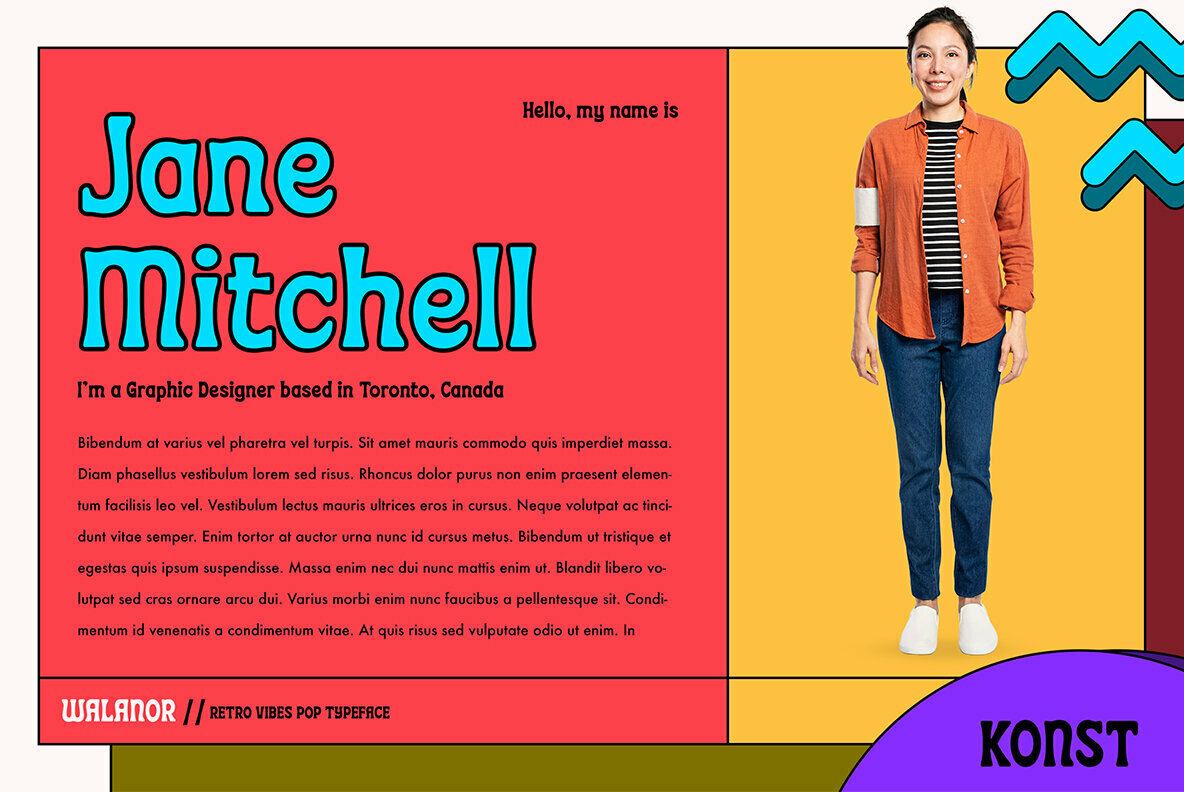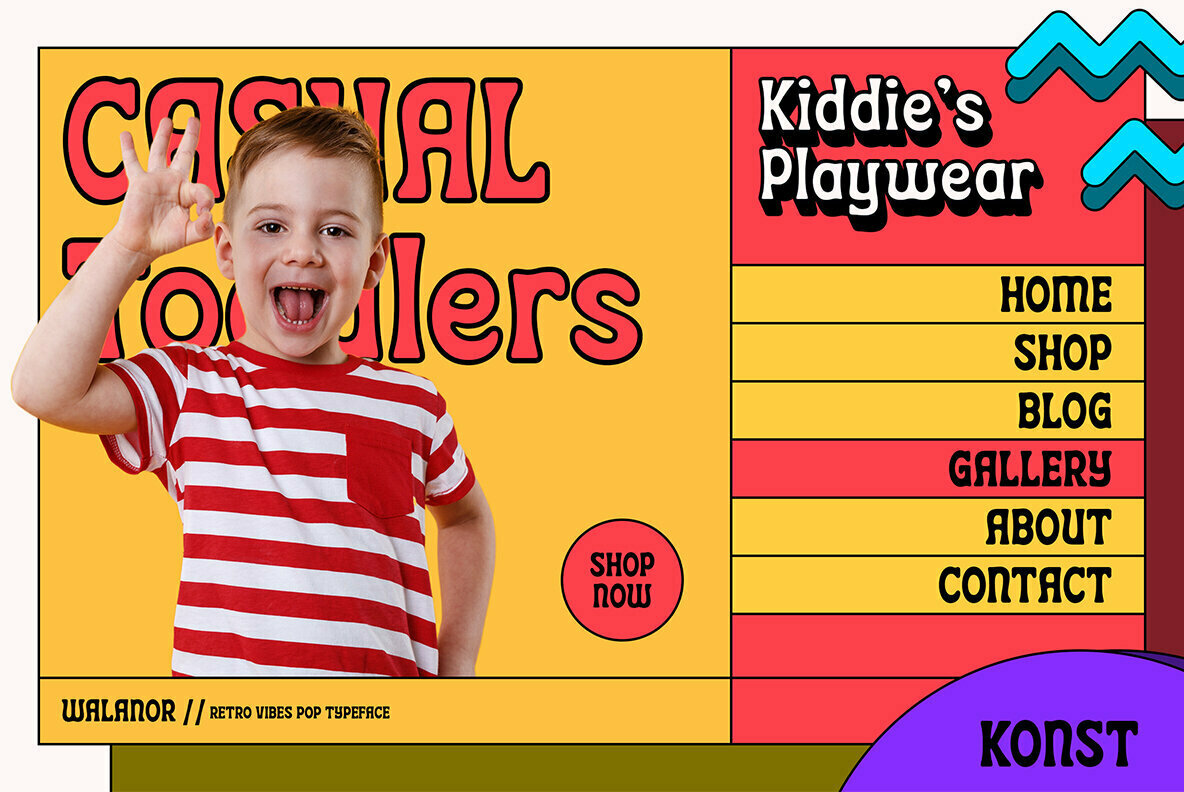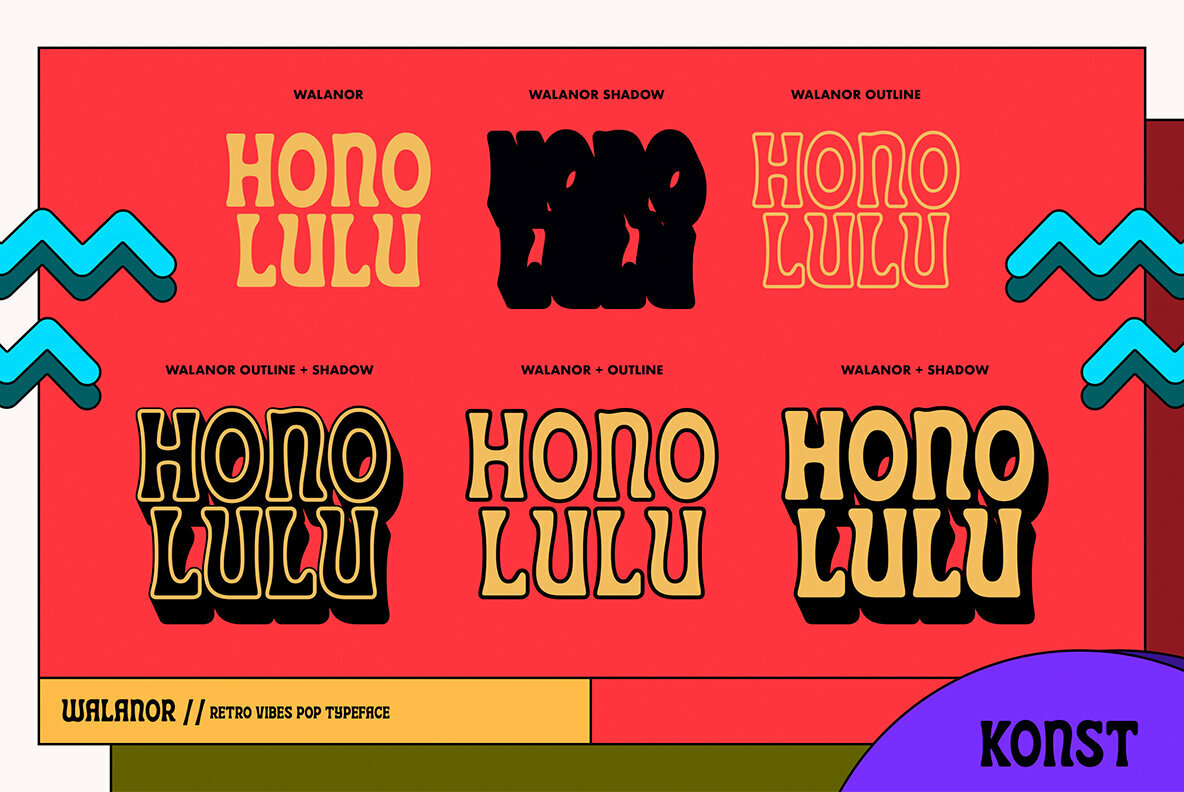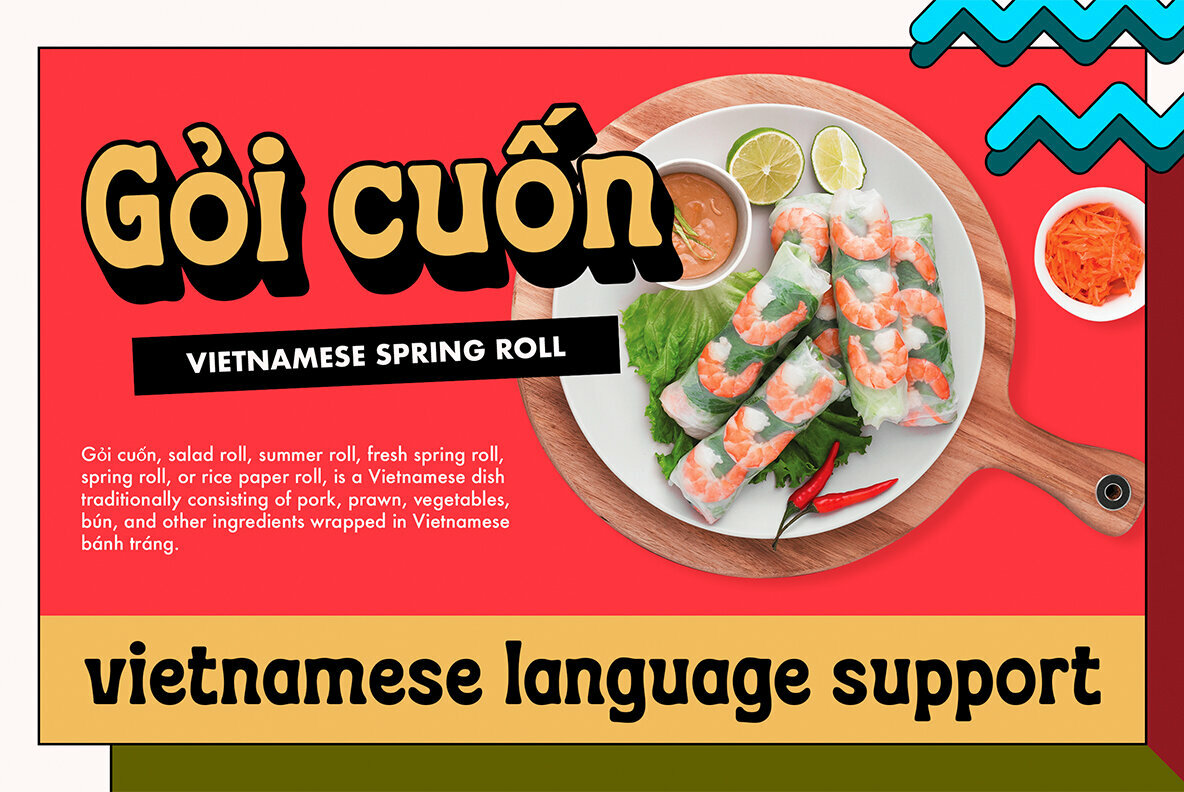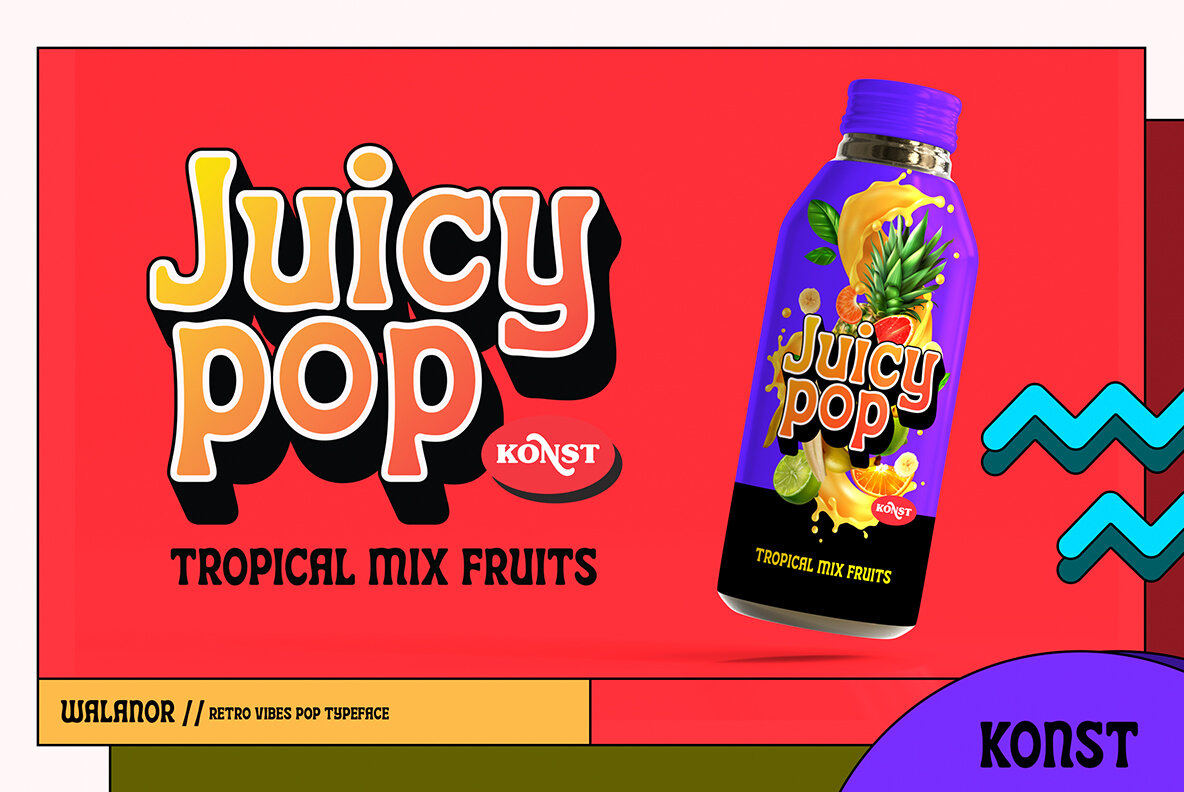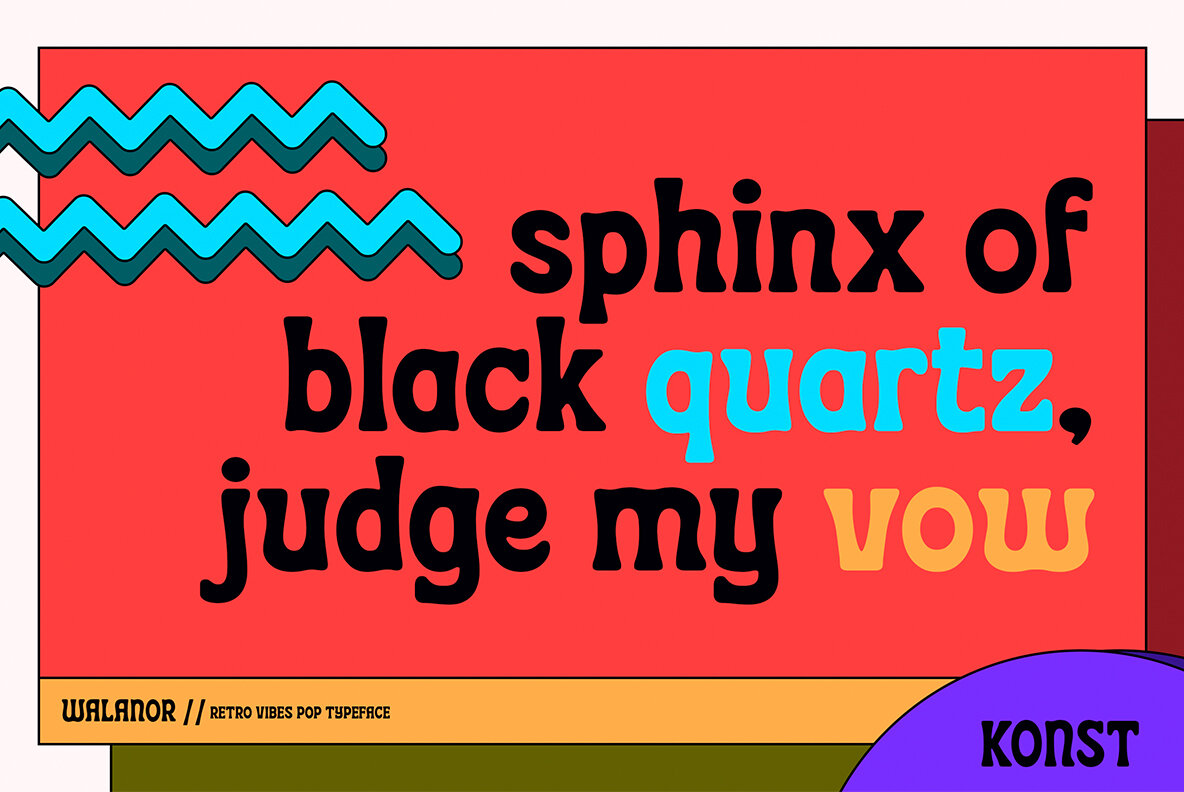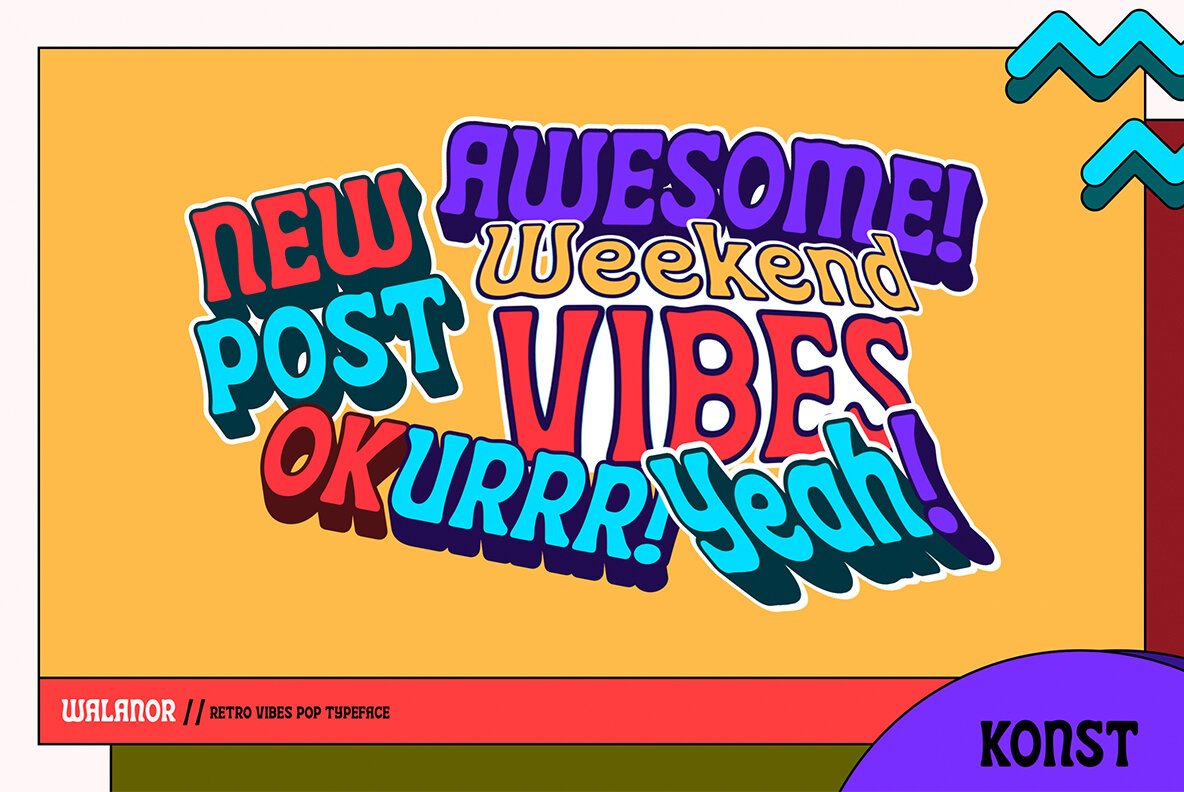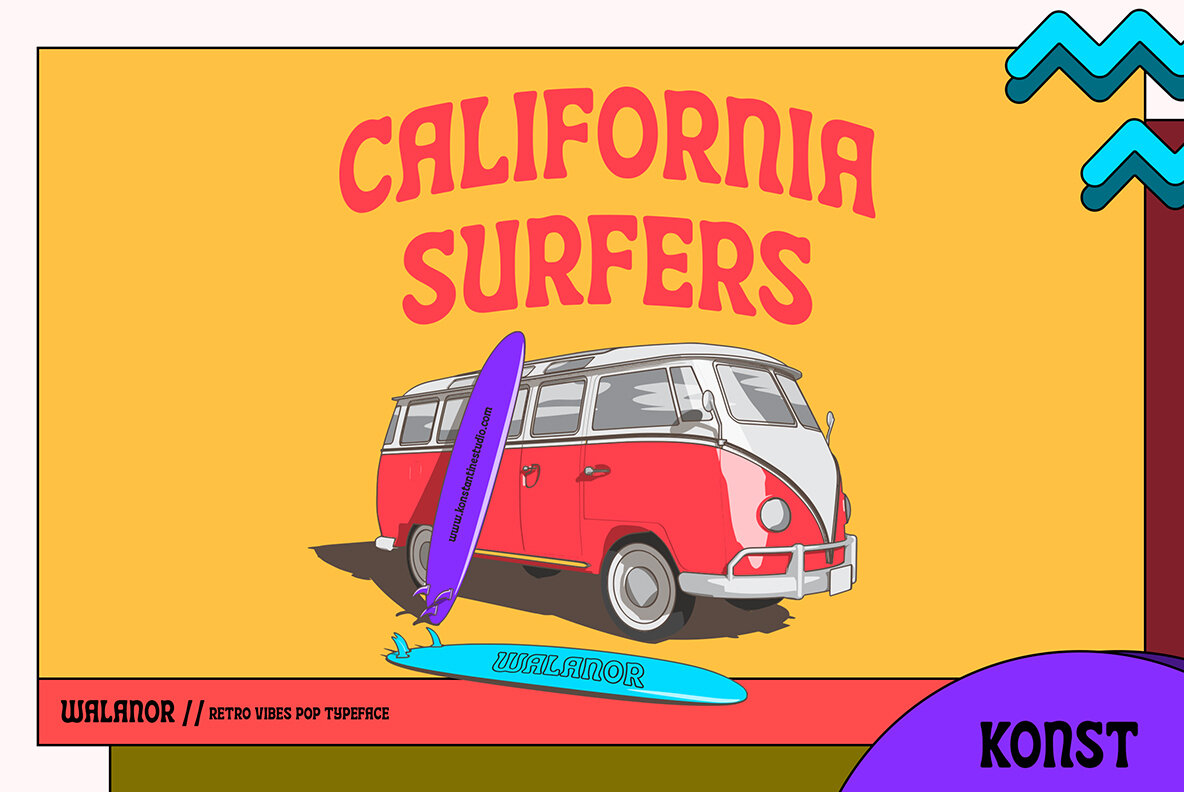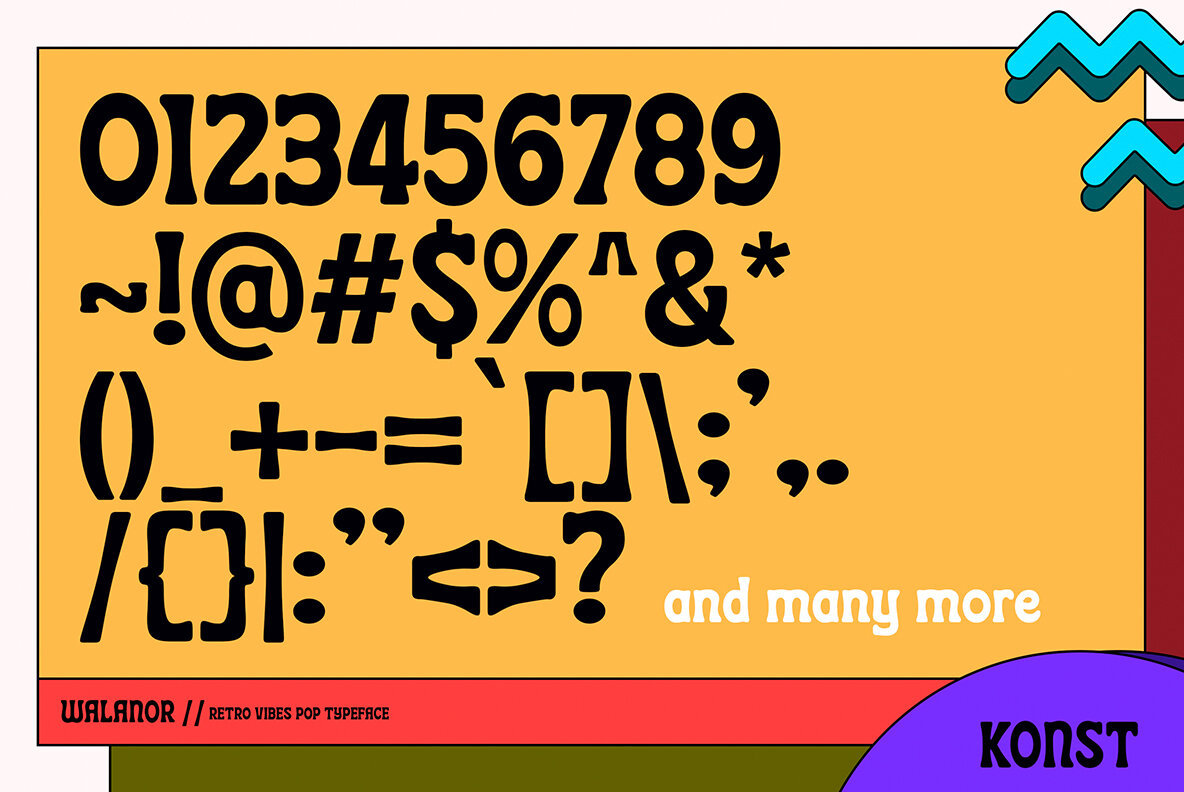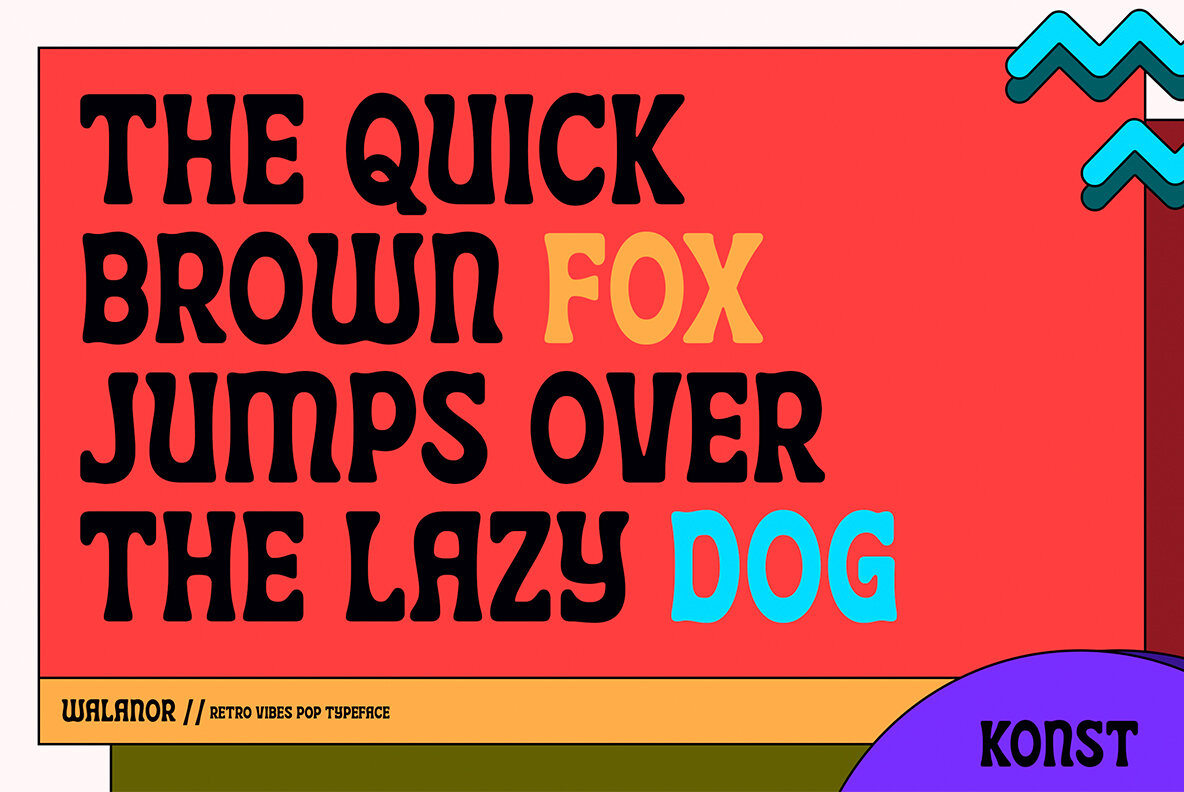
Walanor Font
Dive into the energetic world of retro aesthetics with Walanor, a vibrant display font that celebrates the boldness of 80s culture. Inspired by the captivating visual trends of the era, Walanor encapsulates the essence of disco, pop culture, and vintage sign painting. Its playful and casual style brings to mind cherished memories of vinyl records, eye-catching posters, and the striking designs found in classic magazines.Walanor: Retro Vintage Display Font From the 80s